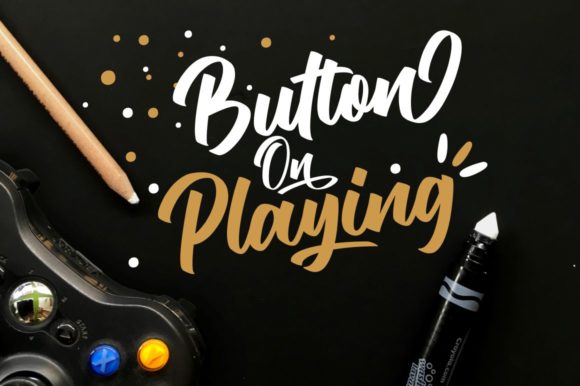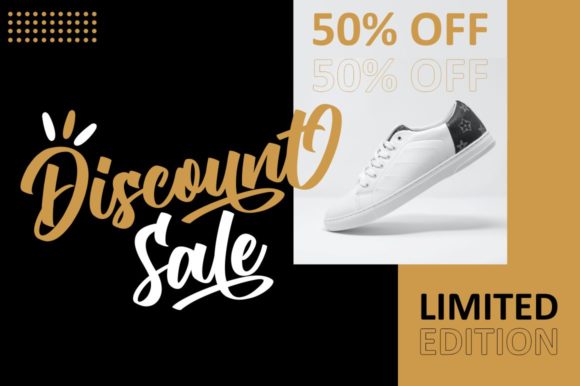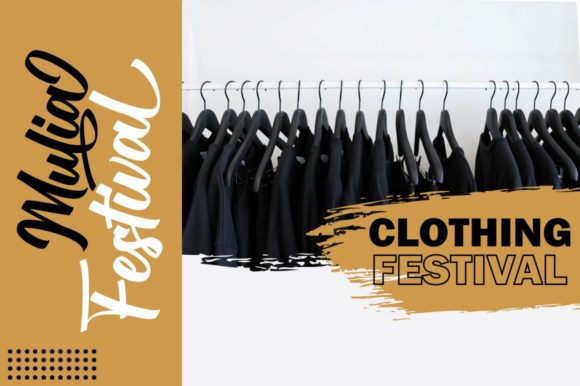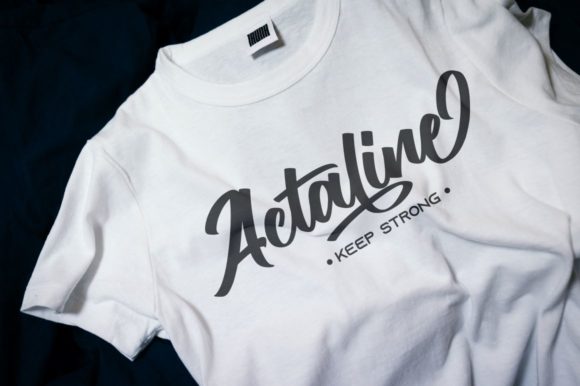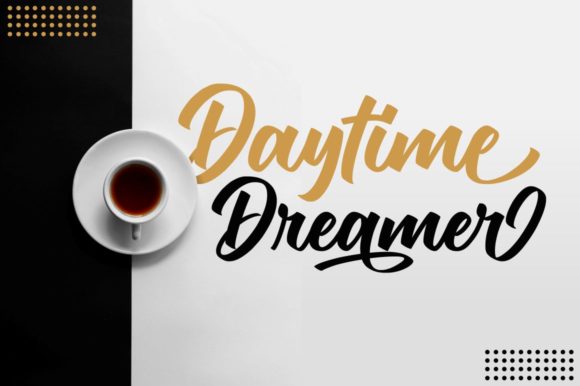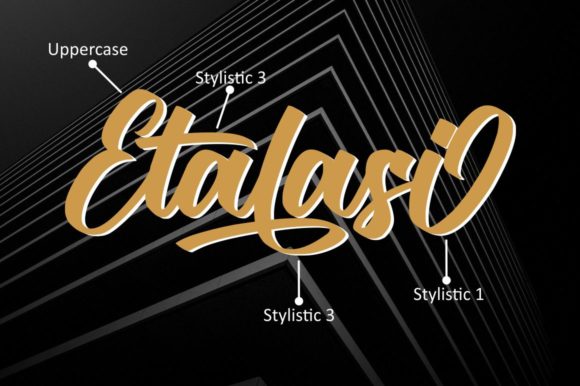
Etalasi Font: Elevate Your Designs with a Stylish and Confident Handwritten Font
Are you looking for a font that can add a touch of elegance and sophistication to your designs? Look no further than Etalasi Font, a gorgeous and bold handwritten font that is perfect for headlines, logotype projects, and more. In this article, we’ll take a closer look at Etalasi Font, its features, and how it can elevate your designs.
What is Etalasi Font?
Etalasi Font is a carefully crafted handwritten font that exudes confidence, strength, and dynamism. Its bold and stylish design makes it perfect for designers and crafters looking to add a touch of nostalgia and character to their work. Whether you’re working on a branding project, a poster, or a social media graphic, Etalasi Font is sure to make a statement.
Key Features of Etalasi Font
- Bold and Stylish Design: Etalasi Font features a bold and stylish design that is sure to grab attention.
- Handwritten with Love: This font is carefully crafted with love and attention to detail, giving it a unique and personal touch.
- Confident and Dynamic: Etalasi Font reads as strong, confident, and dynamic, making it perfect for headlines and logotype projects.
- Nostalgic Character: This font adds a touch of nostalgia to your designs, making it perfect for projects that require a vintage or retro feel.
How to Use Etalasi Font in Your Designs
Etalasi Font is versatile and can be used in a variety of design projects, including:
- Headlines and Logotype: Use Etalasi Font to create bold and eye-catching headlines and logotypes that make a statement.
- Branding and Identity: Add a touch of elegance and sophistication to your branding and identity projects with Etalasi Font.
- Posters and Flyers: Use Etalasi Font to create stunning posters and flyers that grab attention.
- Social Media Graphics: Elevate your social media graphics with Etalasi Font and make your content stand out.